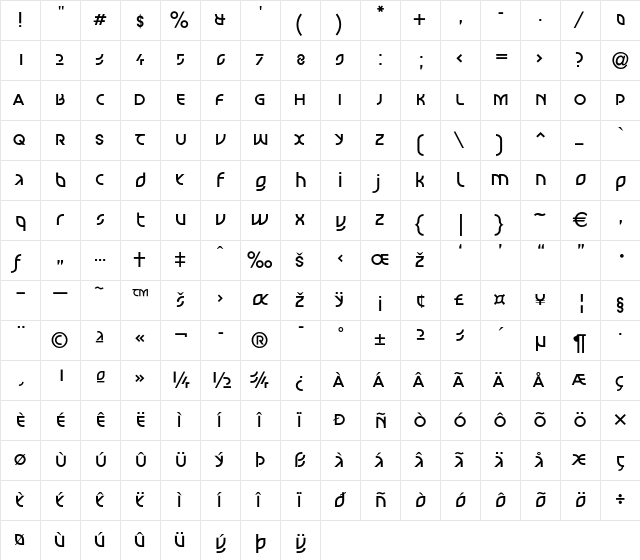
LinotypeScott Mars Regular
Design Context for LinotypeScott Mars Typeface
LinotypeScott Mars takes a measured approach to typography — its balanced proportions and neutral character make it a reliable workhorse for both digital and print work.
Pro Tip: Use LinotypeScott Mars in both headline and body roles to test its range before committing to a single application.